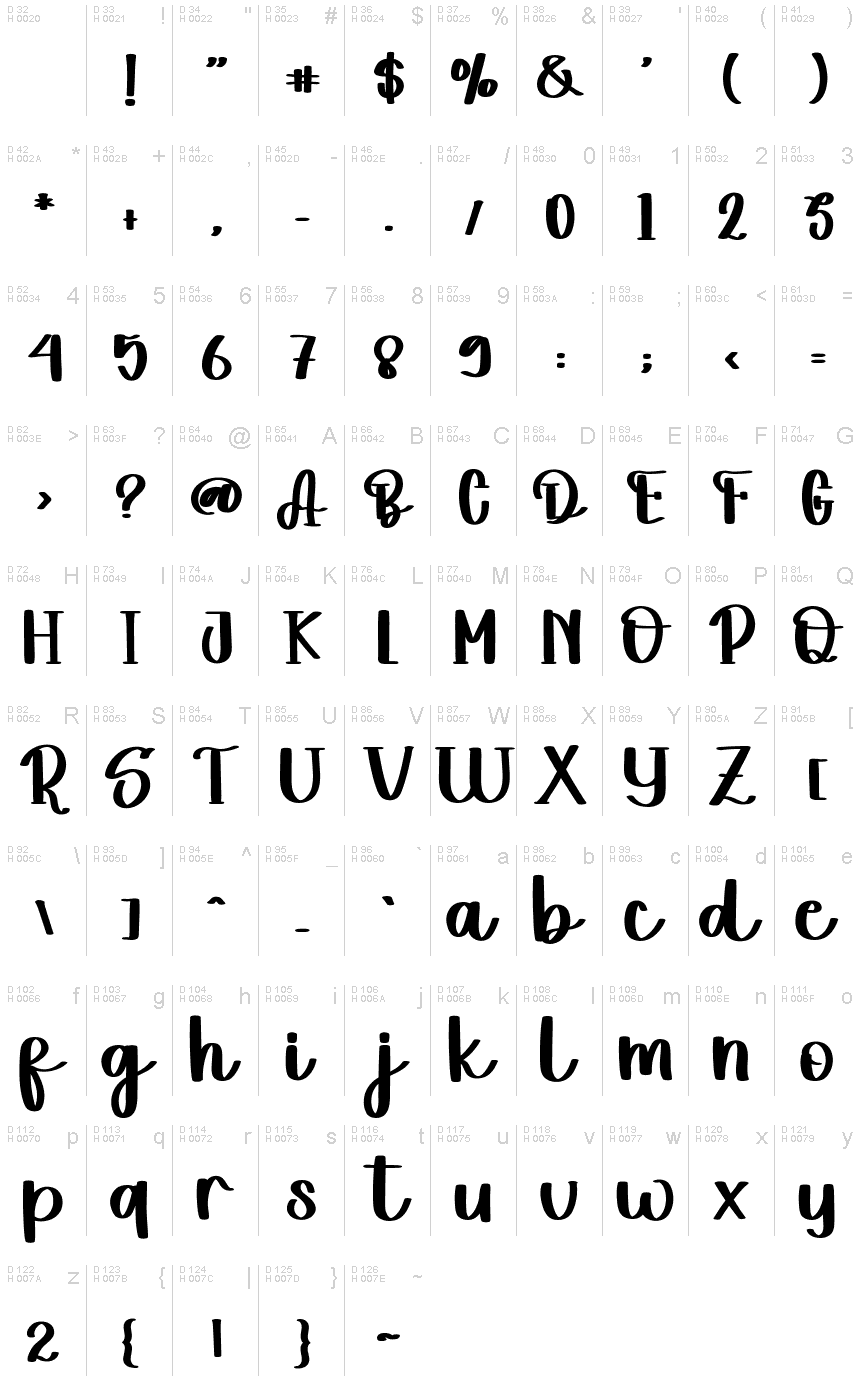
Winter Seasson
Winter Seasson, the latest addition to FreshtypeINK's font collections, is a semi-bold handwritten marker font that brings a touch of warmth and whimsy to any project. Its playful strokes and uneven lines perfectly capture the essence of winter, making it an ideal choice for holiday cards, invitations, and social media graphics. Whether you're creating a cozy winter campaign or simply adding some festive flair to your brand's visual identity, Winter Seasson is just what you need to stand out from the crowd. So why settle for boring typefaces when you can add some personality with Winter Seasson?